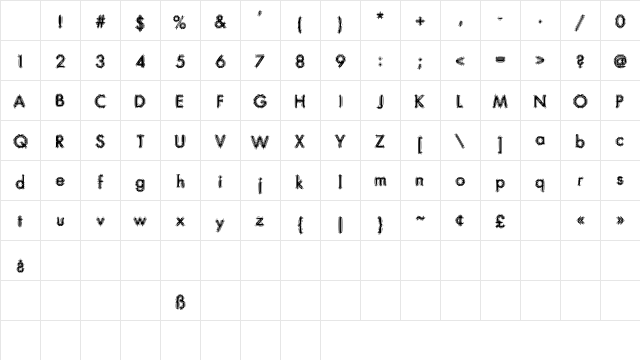
Complete Pandemic Medium glyph index. Displaying only characters natively supported by Pandemic Medium font.
Pandemic is a composed and adaptable typeface that performs quietly and consistently across a wide range of design contexts.